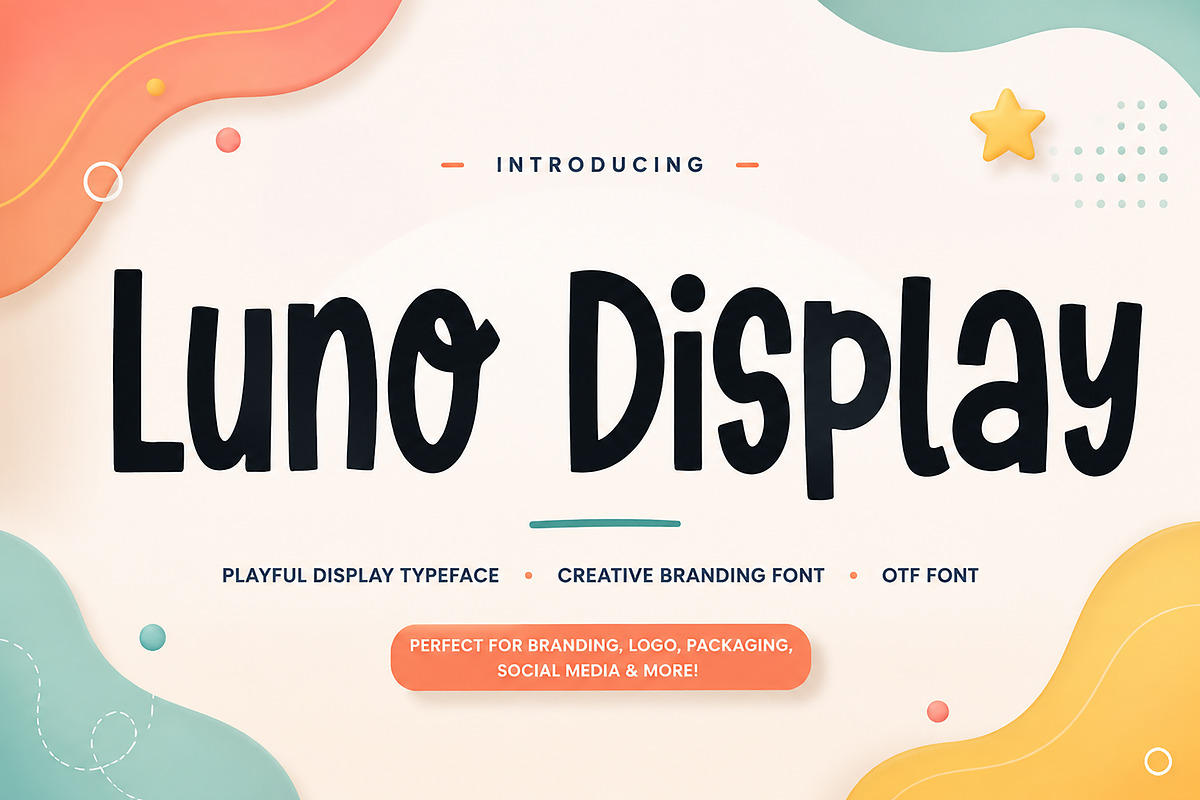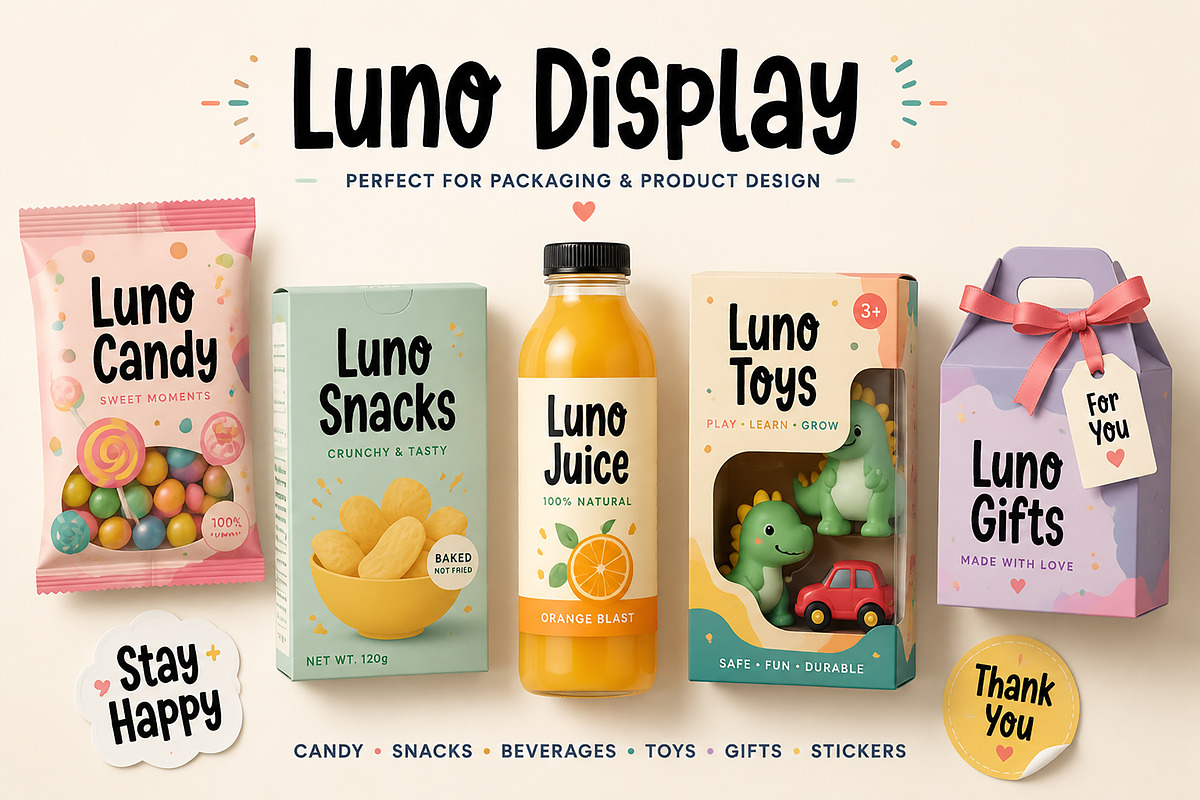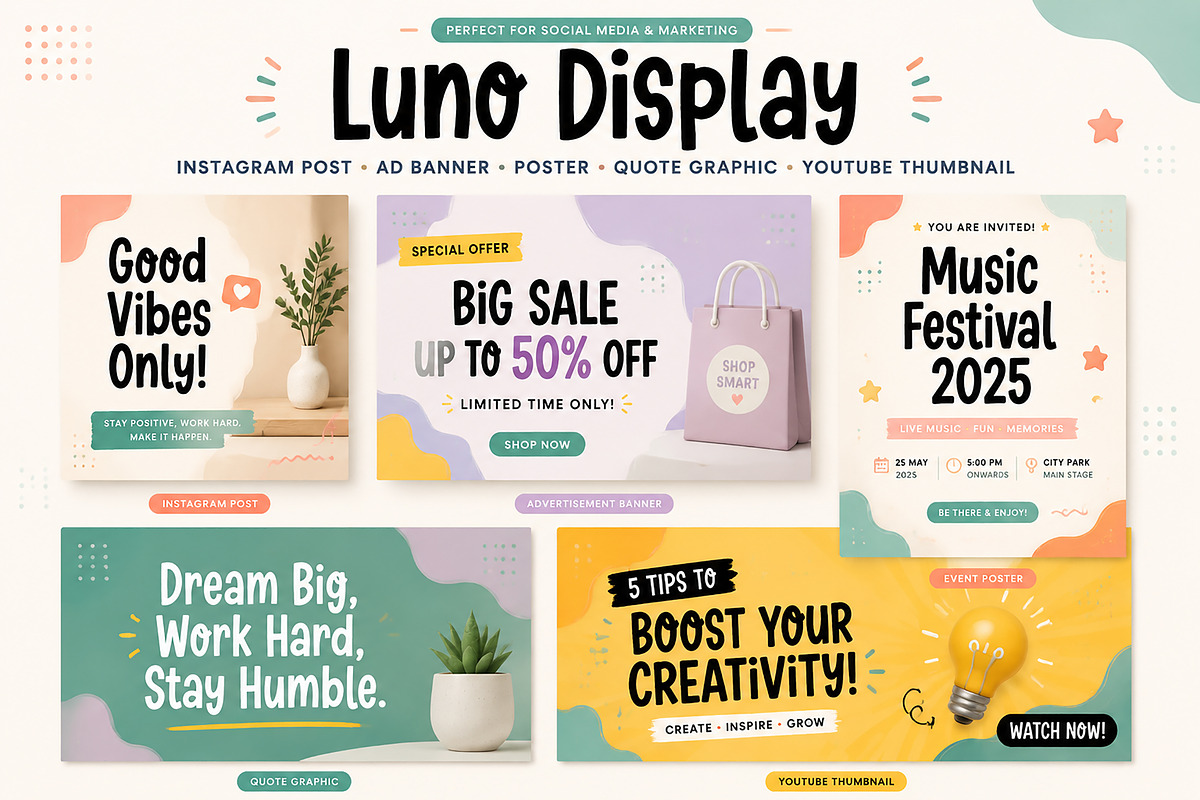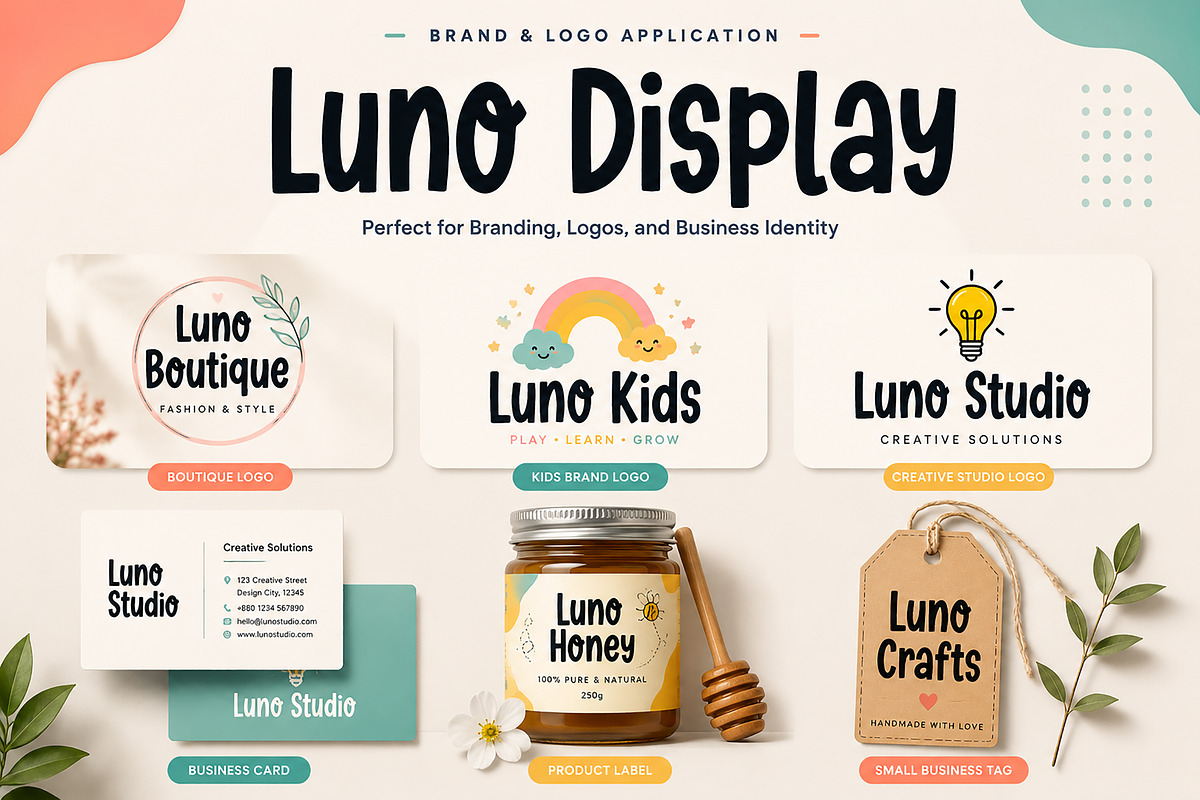
Luno Display
Luno Display is a playful and modern display font designed to bring personality, creativity, and a friendly touch to your designs. With its bold rounded shapes and unique character, this typeface is perfect for creating eye-catching branding, logos, packaging, social media graphics, posters, invitations, and creative projects.
Designed for designers, entrepreneurs, and creative makers, Luno Display helps your ideas stand out with a fun yet professional appearance. Whether you are working on a kids brand, product identity, marketing materials, or digital content, this font adds a memorable visual style to every project.
• Logo Design
• Brand Identity
• Kids Branding
• Packaging Design
• Product Labels
• Social Media Posts
• Advertising Designs
• Posters & Flyers
• Invitations
• Stickers
• Merchandise Design
• Creative Projects
✓ Playful Display Typeface
✓ Bold & Friendly Letter Shapes
✓ Perfect for Branding Projects
✓ Great for Print & Digital Designs
✓ Easy to Use in Creative Applications
Bring a fun, modern, and memorable style to your designs with Luno Display — a creative font made to help your ideas shine.